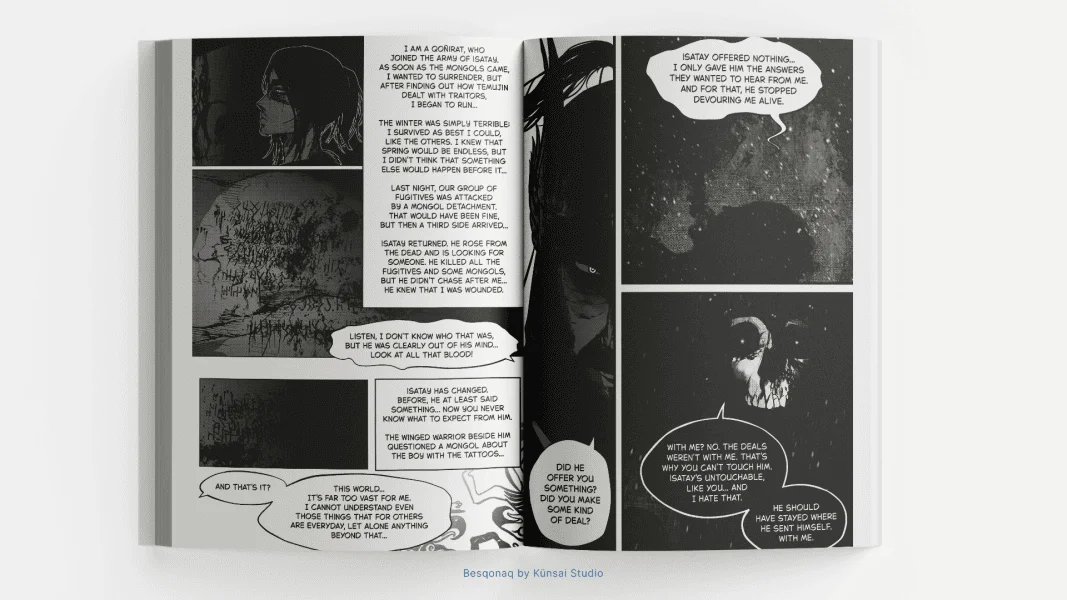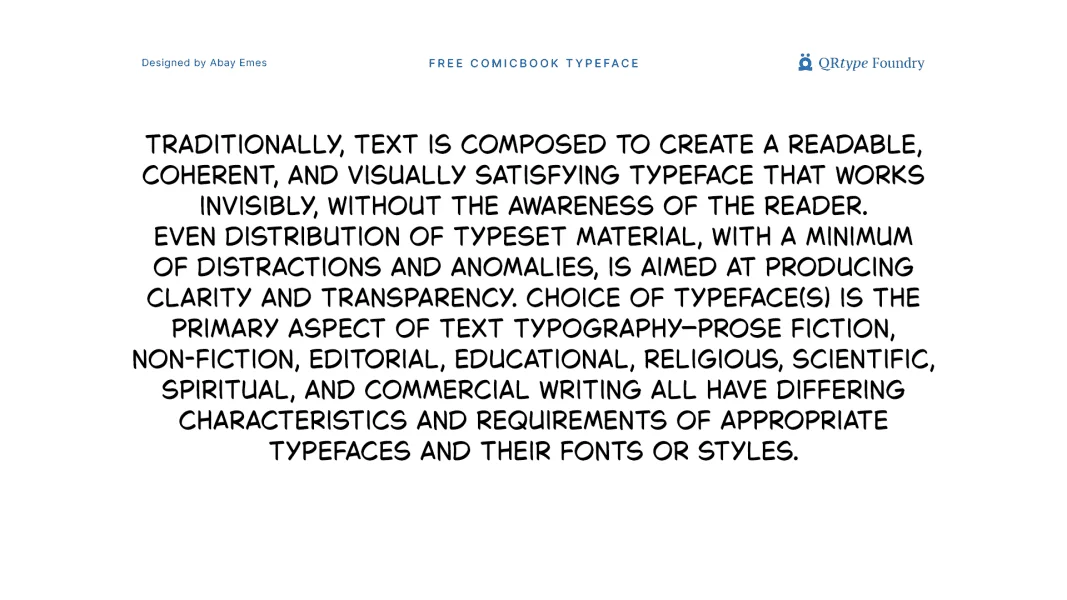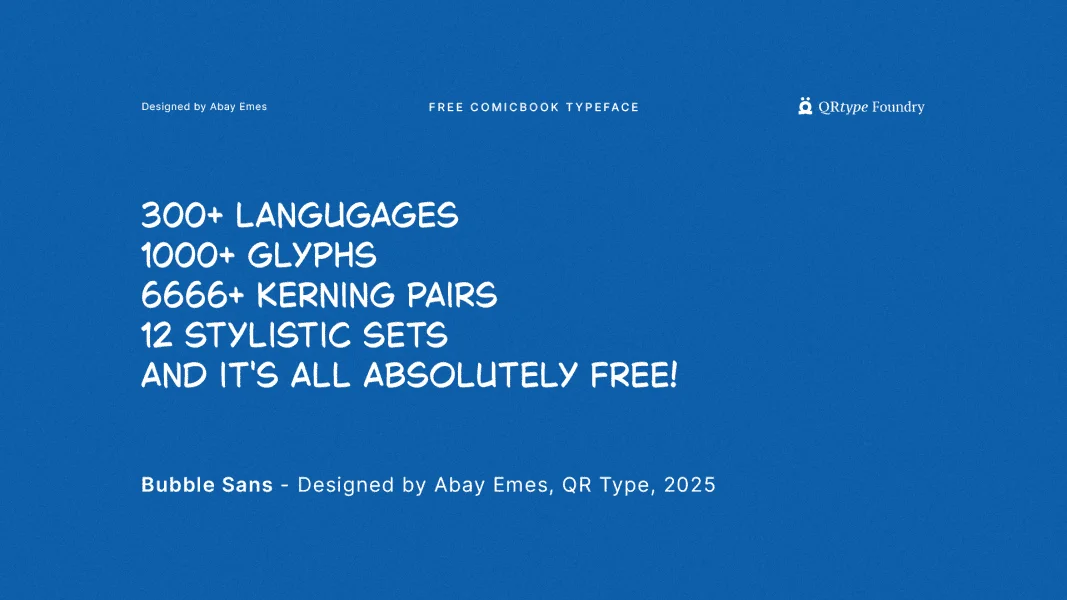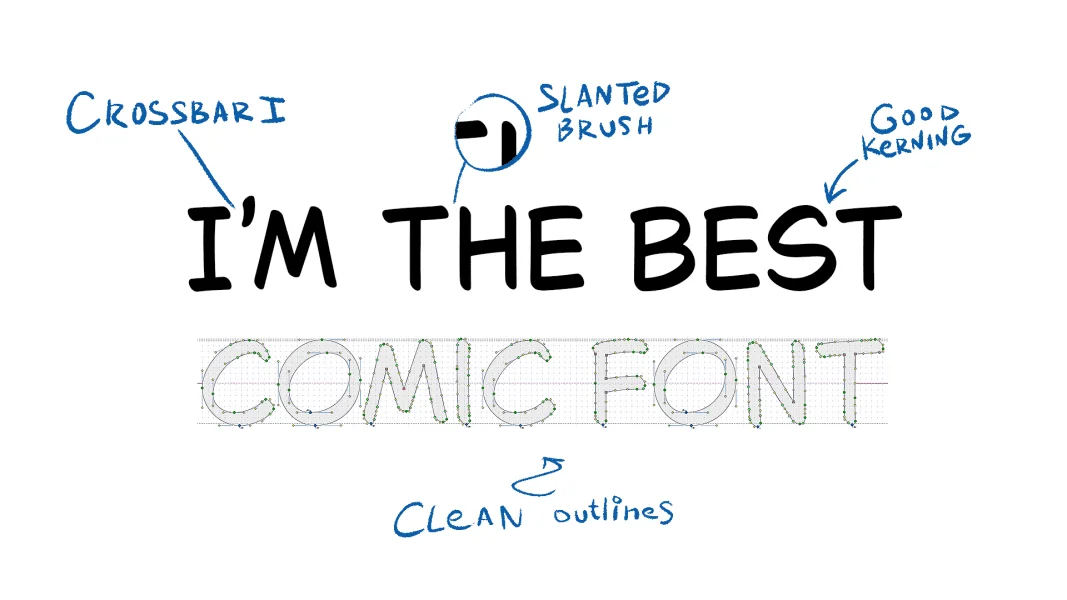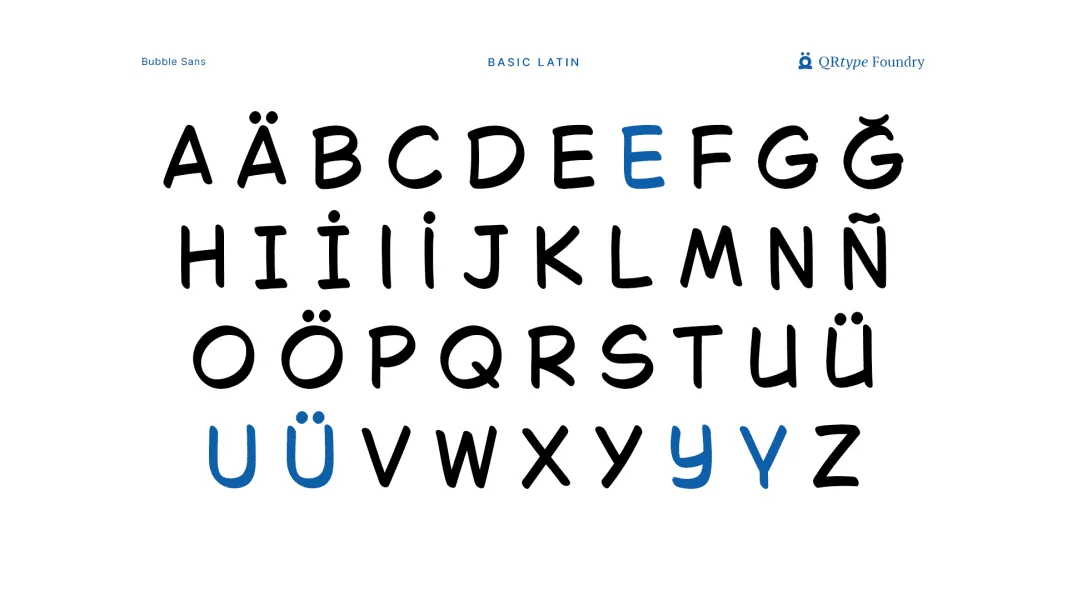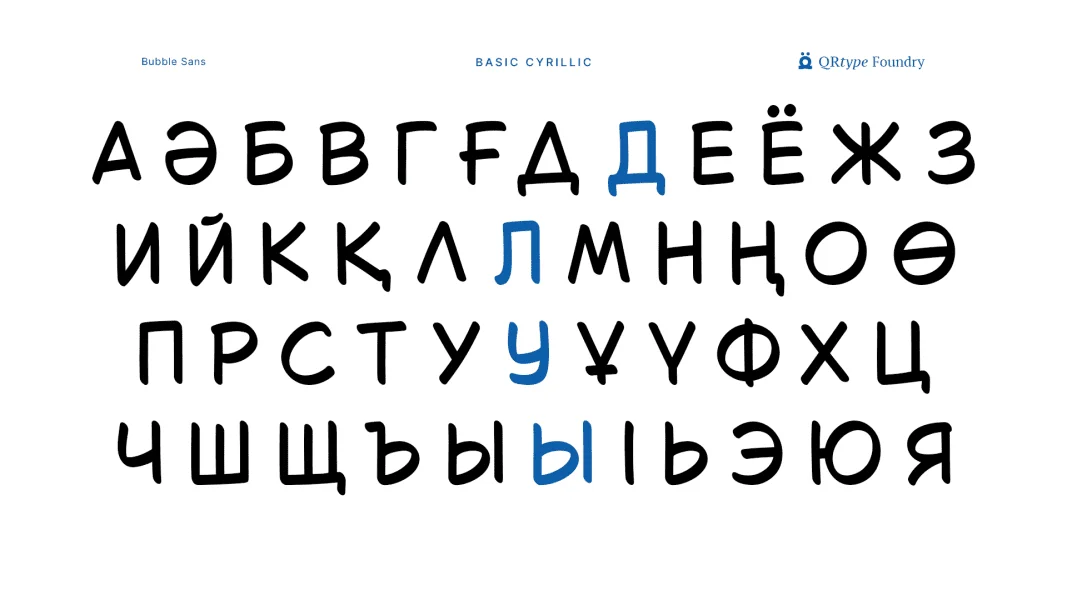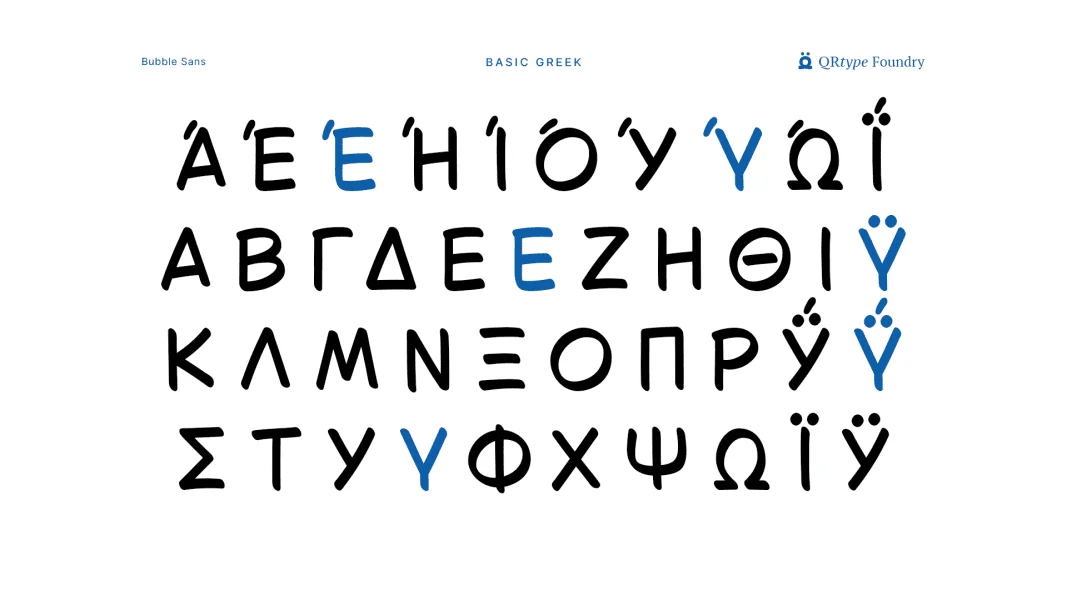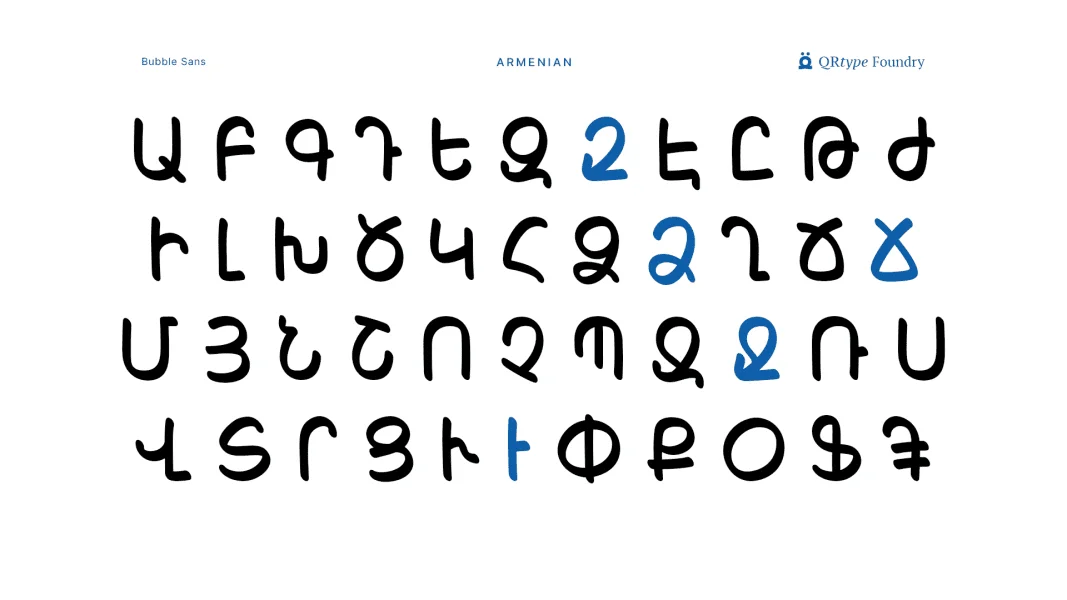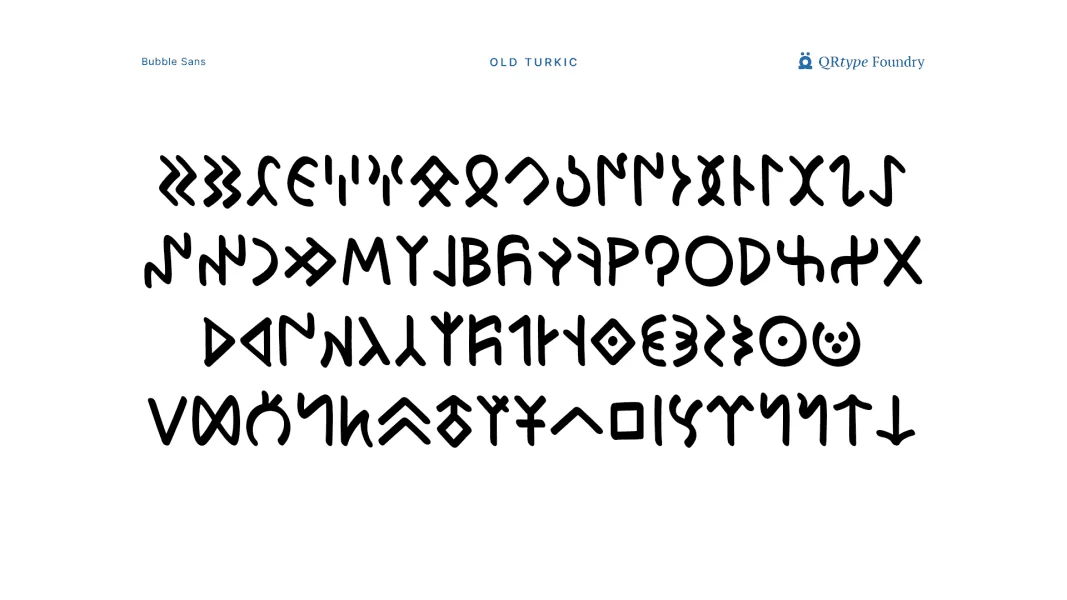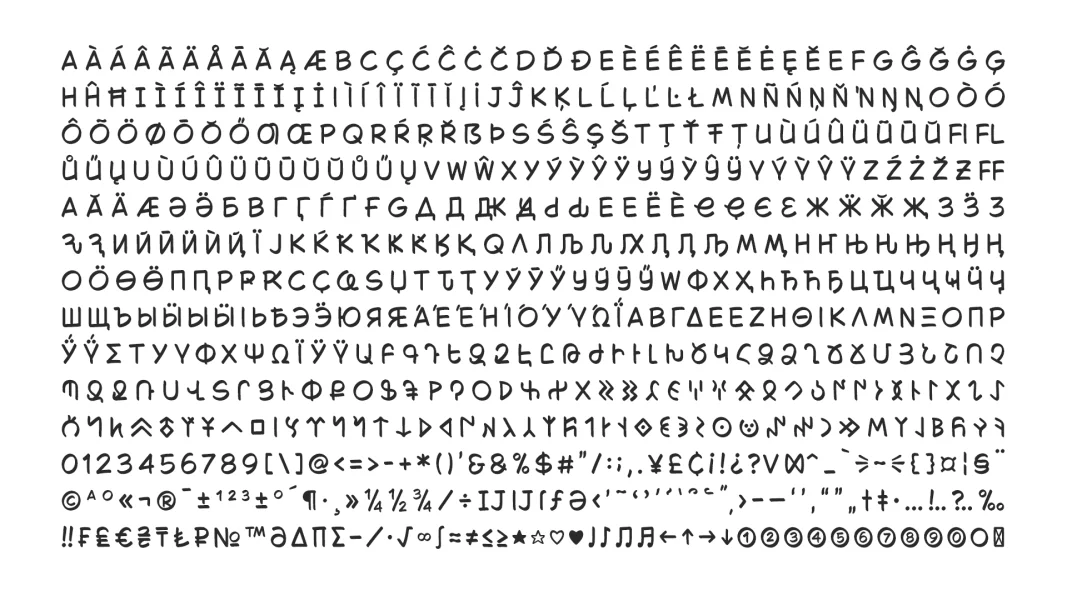
Bubble Sans is a neutral handwritten typeface designed for Comic Book Lettering. Inspired by comic book Speech Bubble Lettering of the early 2000s, its elastic strokes and subtle asymmetry convey the liveliness of handwriting while maintaining the neatness of digital lettering. With wide proportions and open shapes, Bubble Sans remains highly legible even in dense speech bubbles. Thanks to its neutrality and precision, it doesn’t overwhelm the reader and stays easy on the eyes. This is especially important in Children’s Publications: the even letterforms help beginning readers recognize text more quickly and follow the story with interest.
The Typeface includes alternative Cyrillic and Latin letterforms as well as additional decorative symbols. In addition, it supports Greek, Armenian, and Old Turkic scripts, opening up broad opportunities for lettering and display typography in multilingual projects.
Bubble Sans performs equally well in Speech Bubbles, Headlines, Children’s Books, and Posters. Thanks to its Open Font License, the typeface can be freely used in both print and digital projects without restrictions.